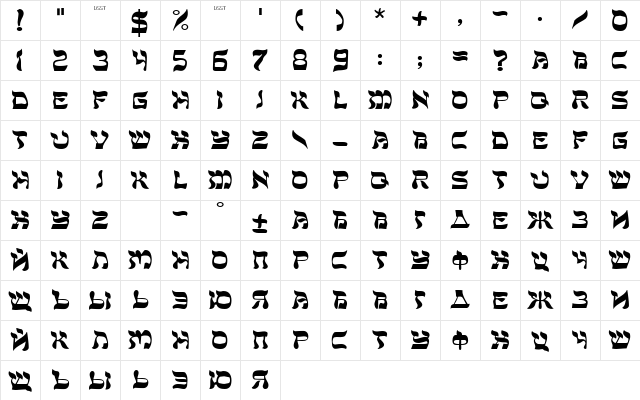
DS Sholom Medium Free Font
DS Sholom Medium
Design Context for DS Sholom
DS Sholom is a composed and adaptable typeface that performs quietly and consistently across a wide range of design contexts.